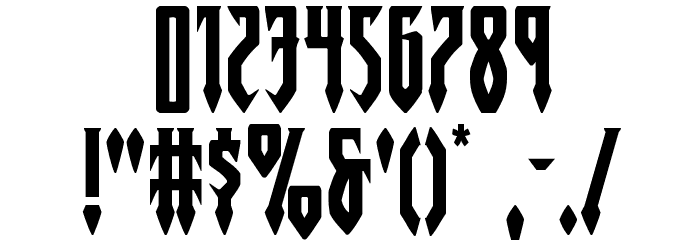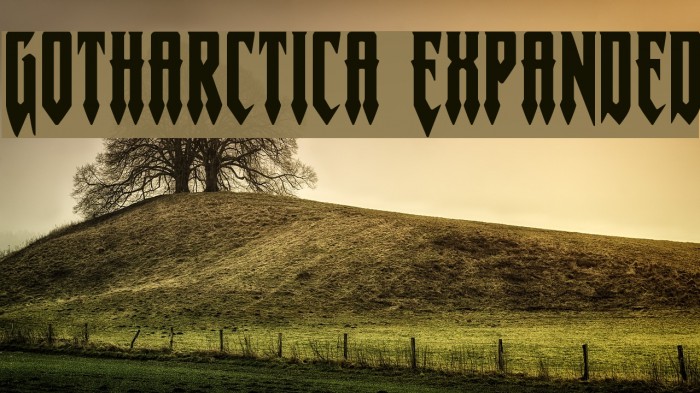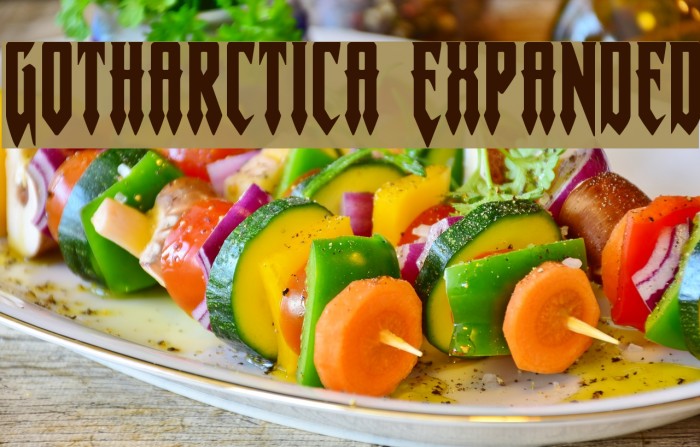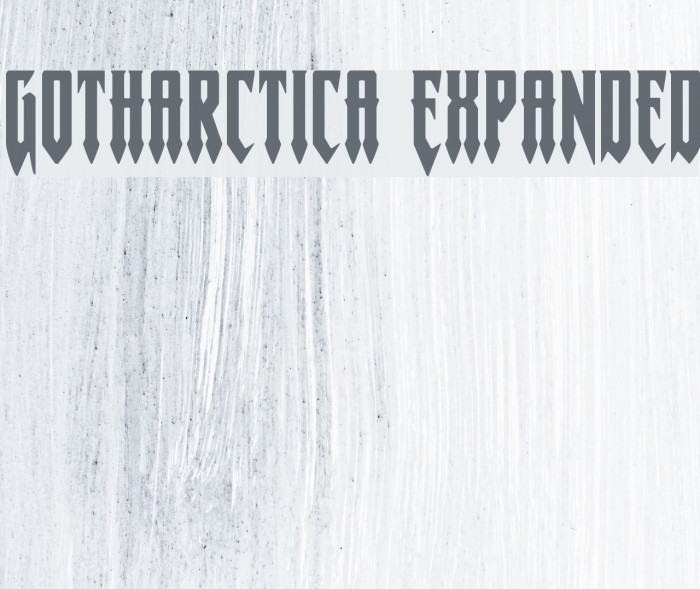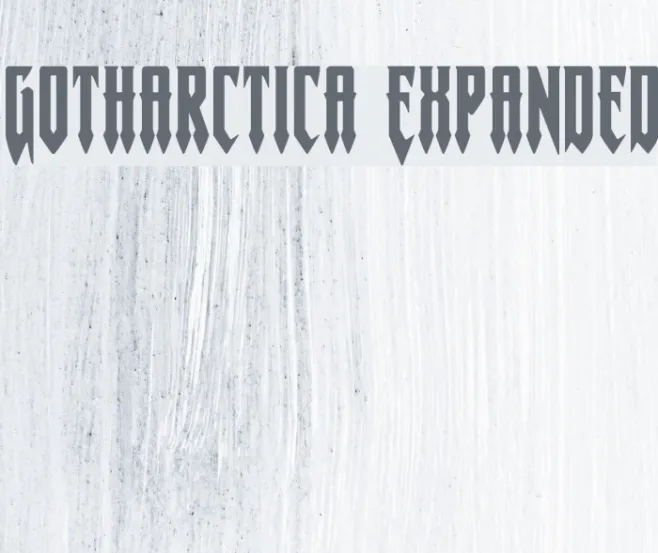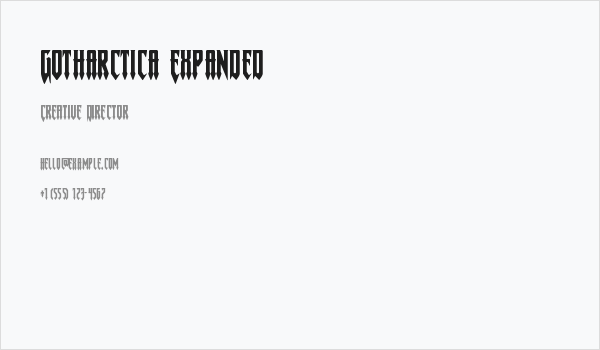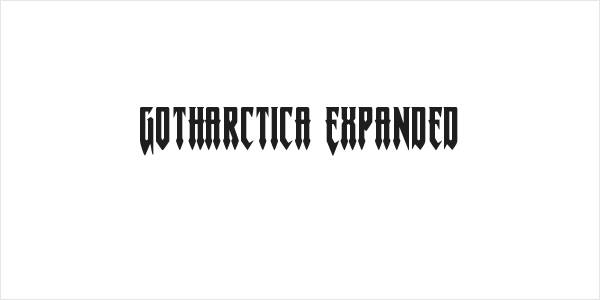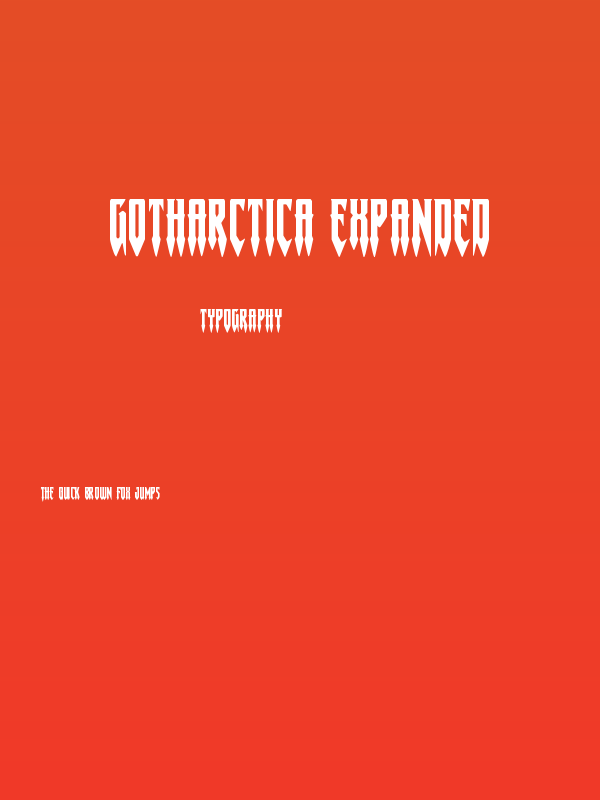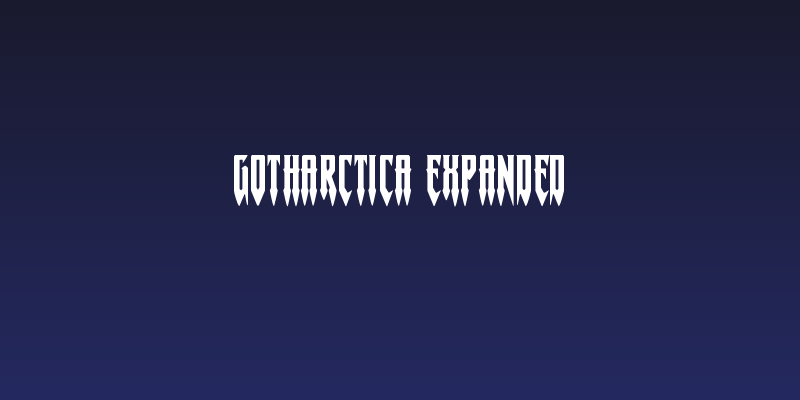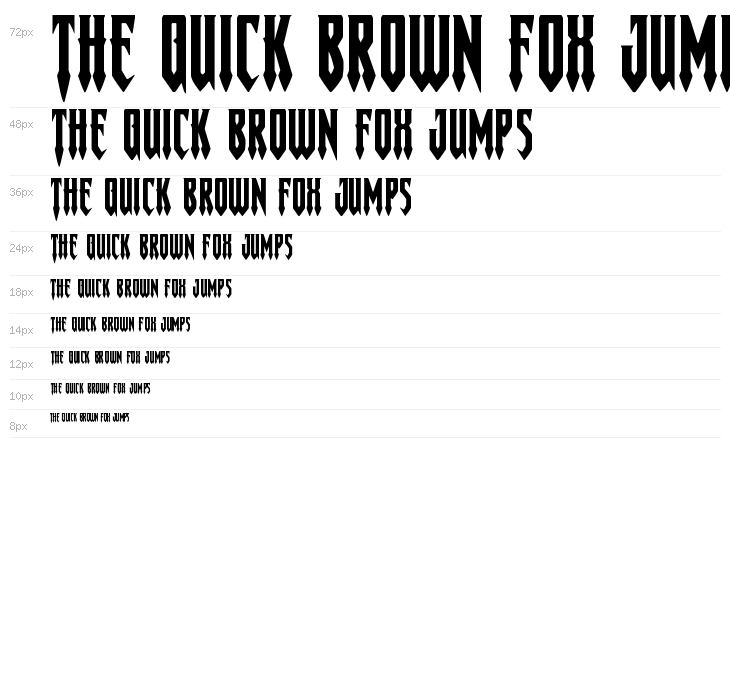
Gotharctica Expanded Font
Gotharctica Expanded Description
This font features a bold, angular design with sharp, pointed edges and a distinctly gothic influence. The characters are tall and narrow, with a strong vertical emphasis that gives them a commanding presence. The uppercase letters are particularly striking, with their elongated forms and dramatic serifs. The numbers and special characters maintain the same stylistic elements, ensuring consistency across all glyphs. This font's unique style is both eye-catching and memorable, making it ideal for projects that require a bold statement.
| Overall Style | Gothic, Decorative |
| Proposed Projects | Ideal for use in branding, posters, album covers, and any design that requires a bold, gothic aesthetic. |